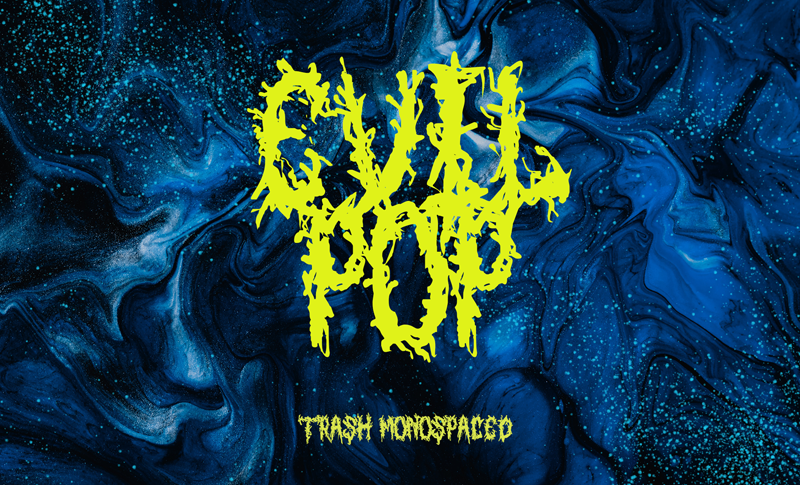
Introducing Evil Pop, the ultimate monospace font for dystopian metal bands! With a trashy and stylized design, Evil Pop perfectly captures the dark and twisted vibe of death metal. It's great for display, logotypes, titles, headlines, album covers, and much more. Give your band's brand a boost with Evil Pop's unique and edgy look. The future is bleak, but with Evil Pop, your metal band will stand out as a beacon of darkness and despair. By installing or using this font, you are agree to the Product Usage Agreement: This font is already FULL VERSION and ONLY for PERSONAL USE. NO COMMERCIAL USE ALLOWED! Here is the link to purchase COMMERCIAL LICENSE: https://fontbundles.net/mofr24-work/2560195-evil-pop-trash-dystopia-death-metal-liquid-brutal- If you need a CUSTOM LICENSE or CORPORATE LICENSE please contact us at: mofr24.artwork@gmail.com Any donation are very appreciated. Our Paypal account for donation : https://paypal.me/avieora Please visit our store for more amazing fonts : https://www.creativefabrica.com/mofr24-studio https://fontbundles.net/mofr24-work |